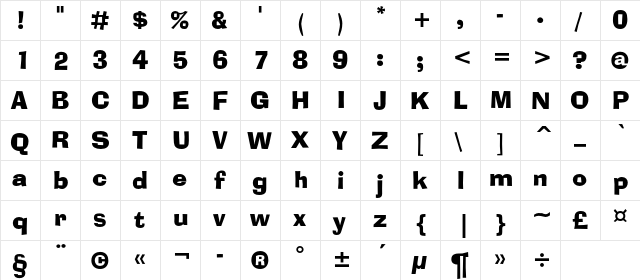
AdLib BT C Regular
Design Context for AdLib BT C Typeface
AdLib BT C takes a measured approach to typography — its balanced proportions and neutral character make it a reliable workhorse for both digital and print work.